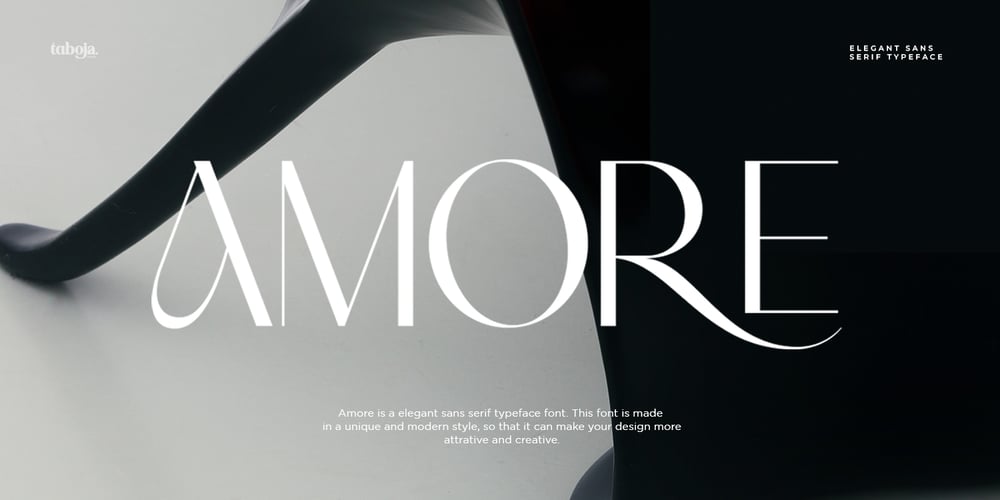
Amore Elegant Sans Serif Font Family was designed by Yusilo Oktaprima Ardani and published by Taboja Studio. Amore Elegant Sans Serif contains 1 styles and family package options. Introducing Amore Elegant Sans Serif Display Font In a serene elegance with a touch of boldness, this sans-serif font delicately exudes understated beauty. The striking contrast between thick and thin lines creates a visually captivating harmony, capturing the essence of modern simplicity.Showcase your unique identity through an engaging logo design! Utilize our exclusive font to add a personal touch to your logo. With distinctive characters and captivating typographic beauty, this font will leave an unforgettable impression, bringing your brand vision to life with eleganceAmore Features: Regular Uppercase And Lowercase Alternates And Ligatures Numerals & Punctuation Accented characters Multilingual Support Unicode PUA Encoded We highly recommend using a program that supports OpenType features and Glyphs panels such as Adobe Illustrator, Adobe Photoshop CC, Adobe Indesign, or CorelDraw, so you can see and access all Glyph variations.While using this product, if you encounter any problem or spot something we may have missed, please don’t hesitate to drop us a message. We’d love to hear your feedbacks in order to further fine-tune our products.Stay creative and have a wonderful day.